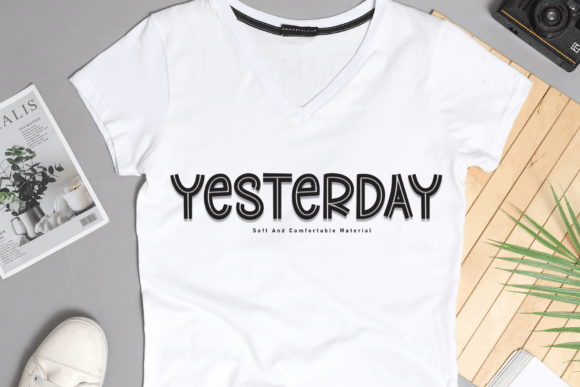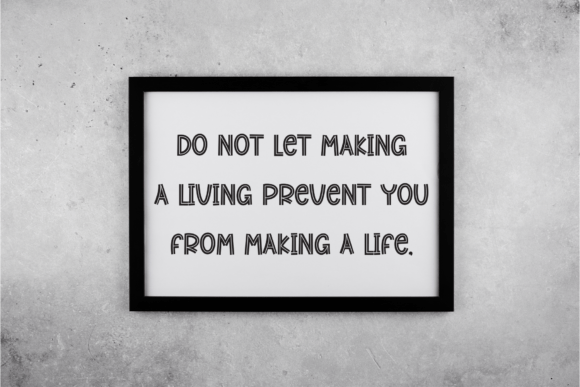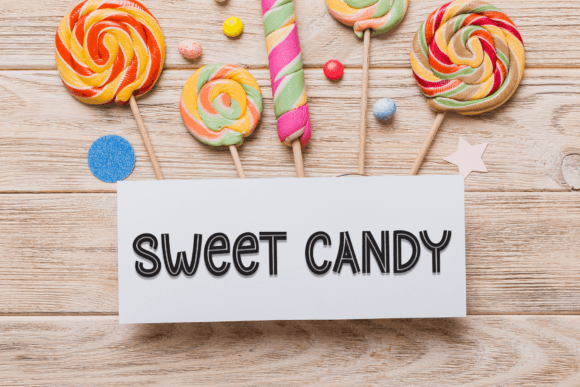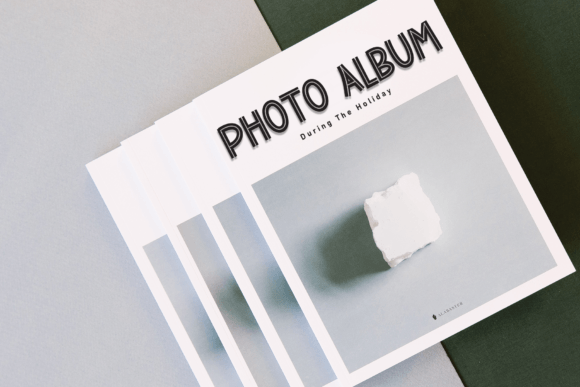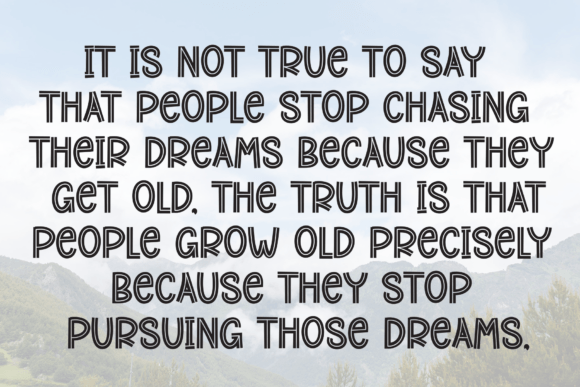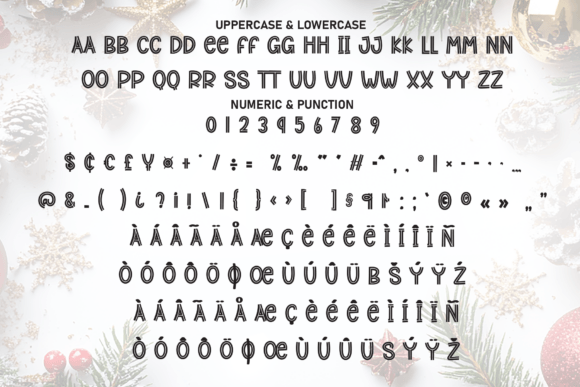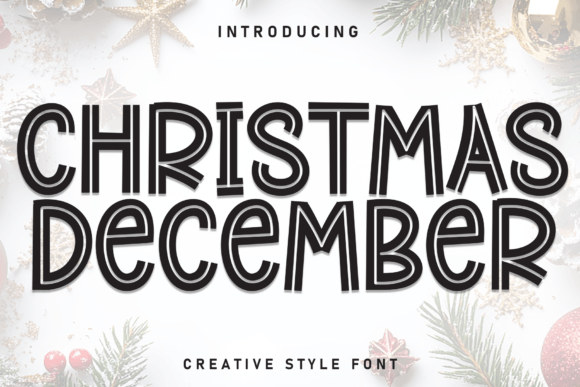
Deck the Halls with Christmas December Font
The holiday season is upon us, and what better way to get into the spirit than with a festive font that’s sure to make your designs merry and bright? Look no further than the “Christmas December” font, a fun and playful inline display font that’s perfect for all your holiday projects.
A Font that’s Full of Cheer
“Christmas December” is a bold, festive font that’s designed to bring a smile to your face. Its playful letters are full of cheer, making it the perfect choice for Christmas cards, decorations, and seasonal projects. Whether you’re a designer, crafter, or simply someone who loves the holiday season, this font is sure to get you in the mood for some festive fun.
Perfect for Holiday Designs
With its bold, inline design, “Christmas December” is perfect for creating eye-catching holiday designs. Use it to create festive Christmas cards, decorations, and gift tags that are sure to impress. The font’s playful vibe makes it perfect for kids’ party invitations, holiday party flyers, and other seasonal projects.
Key Features of Christmas December Font
- Bold and Playful Design: The font features bold, playful letters that are sure to grab attention.
- Festive Vibe: The font’s cheerful vibe makes it perfect for holiday designs and projects.
- Inline Display Font: The font’s inline design makes it perfect for creating eye-catching holiday designs.
Ideas for Using Christmas December Font
There are countless ways to use the “Christmas December” font in your holiday designs. Here are a few ideas to get you started:
- Christmas Cards: Use the font to create festive Christmas cards for friends and family.
- Holiday Decorations: Use the font to create festive holiday decorations, such as gift tags, garlands, and more.
- Kids’ Party Invitations: Use the font to create fun and festive kids’ party invitations.
- Holiday Party Flyers: Use the font to create eye-catching holiday party flyers.
Tips for Getting the Most Out of Christmas December Font
Here are a few tips for getting the most out of the “Christmas December” font:
- Experiment with Colors: Try pairing the font with different colors to create unique and eye-catching designs.
- Add Graphics: Consider adding graphics, such as holly, snowflakes, or other festive images, to your designs.
- Use it with Other Fonts: Try pairing the font with other holiday fonts to create a unique and festive look.
The “Christmas December” font is a fun and festive inline display font that’s perfect for all your holiday designs. With its bold, playful letters and cheerful vibe, it’s sure to bring a smile to your face and get you in the mood for the holiday season. Whether you’re a designer, crafter, or simply someone who loves the holidays, this font is sure to be a valuable addition to your design toolkit.